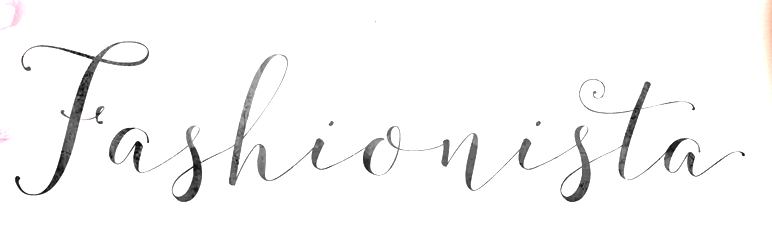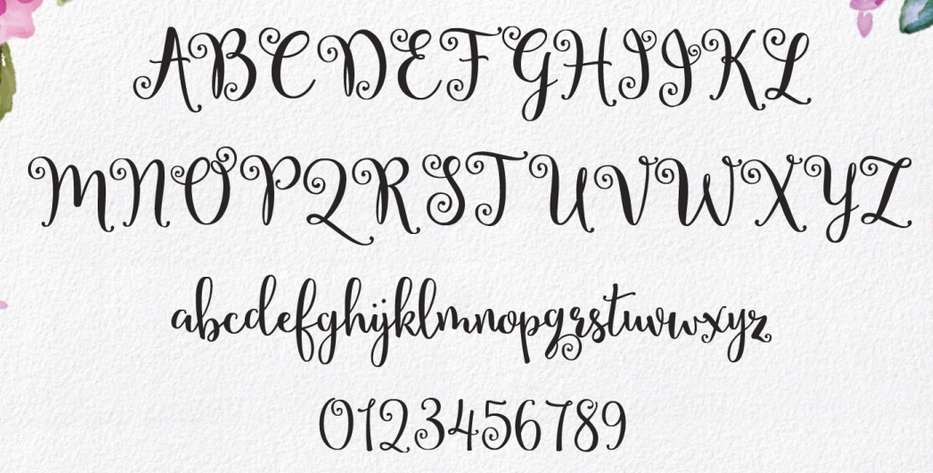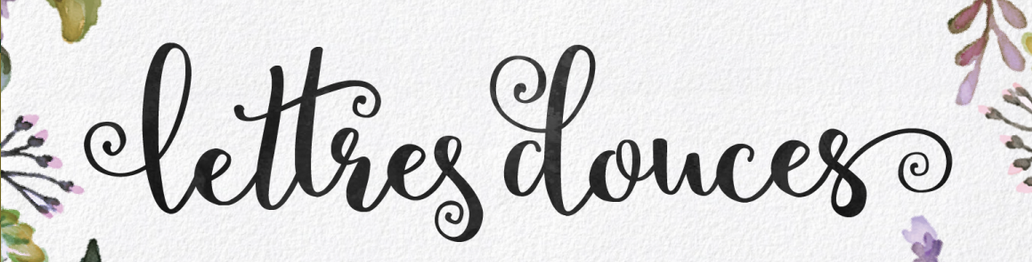
Sweet Type [Emily Spadoni]
Plainville, Massachusetts-based Emily Spadoni (b. 1979), runs Sweet Type. In 2014, she made these hand-printed typefaces: Drawing With Markers, Peanutbutter Smoothies (curly), What I Want For Christmas, Sweethearts Love Letters (curly script), Strawberry Whipped Cream, Silver Bellybutton Ring (cute curly script), Betty, Pink Ladies and Peanutbutter (a curly teatime script), Tall Tulips, Doodle Dings 1 Birds Cages.
Typefaces from 2015: Fashionista (calligraphic connected script), Annabella Calligraphy Script (a great calligraphic curly wedding script typeface family), So Lovely, Velvet Berries (curly script), Butterfly Waltz Script (curly script), Secret Garden Script, Lettres Douches, Starstruck, Berrylicious, Sophia (brush script), Portabello Script, Smoothie Shoppe, Sweet Peony, Margherite, Mirabella Script, Lilly Belle, Sweet Pea, Ballerina Script (curly script), Tippy Toes, Doodle Dings 2 Retro Flowers, Ralphie Brown (curly script), Because I Am Happy (hairline script), Give Me Some Sugar (a lovely boudoir-curly typeface), Dandelion Soup, Noteworthy (a connected signature script), Gardenia (+flower ornaments), Ke Aloha, Country Chic, Clementine, Daydreamer, Tickled Pink (very curly), Sugar Plums Script, Abigail Brush, Hello Sunshine Script, Ink Blossoms Script, Carried Away, and Beautiful Day.